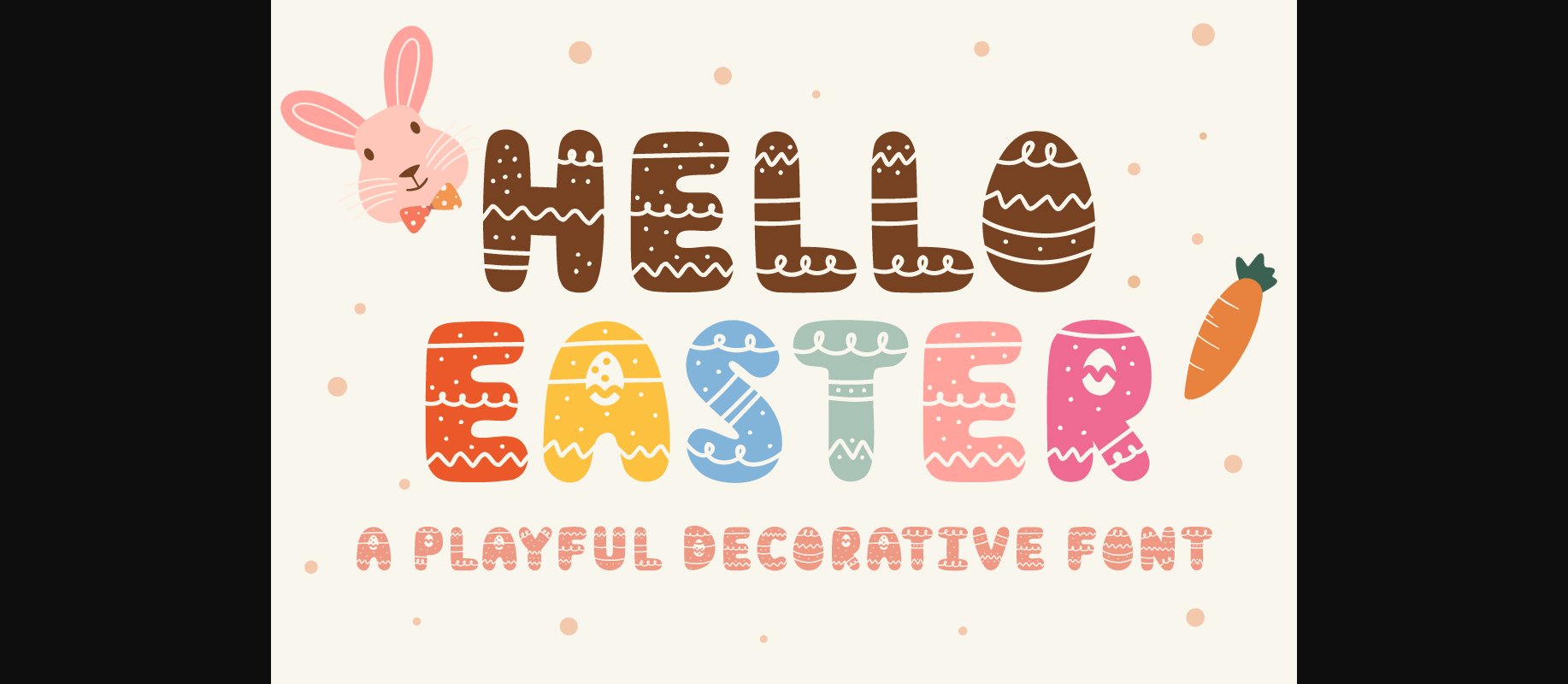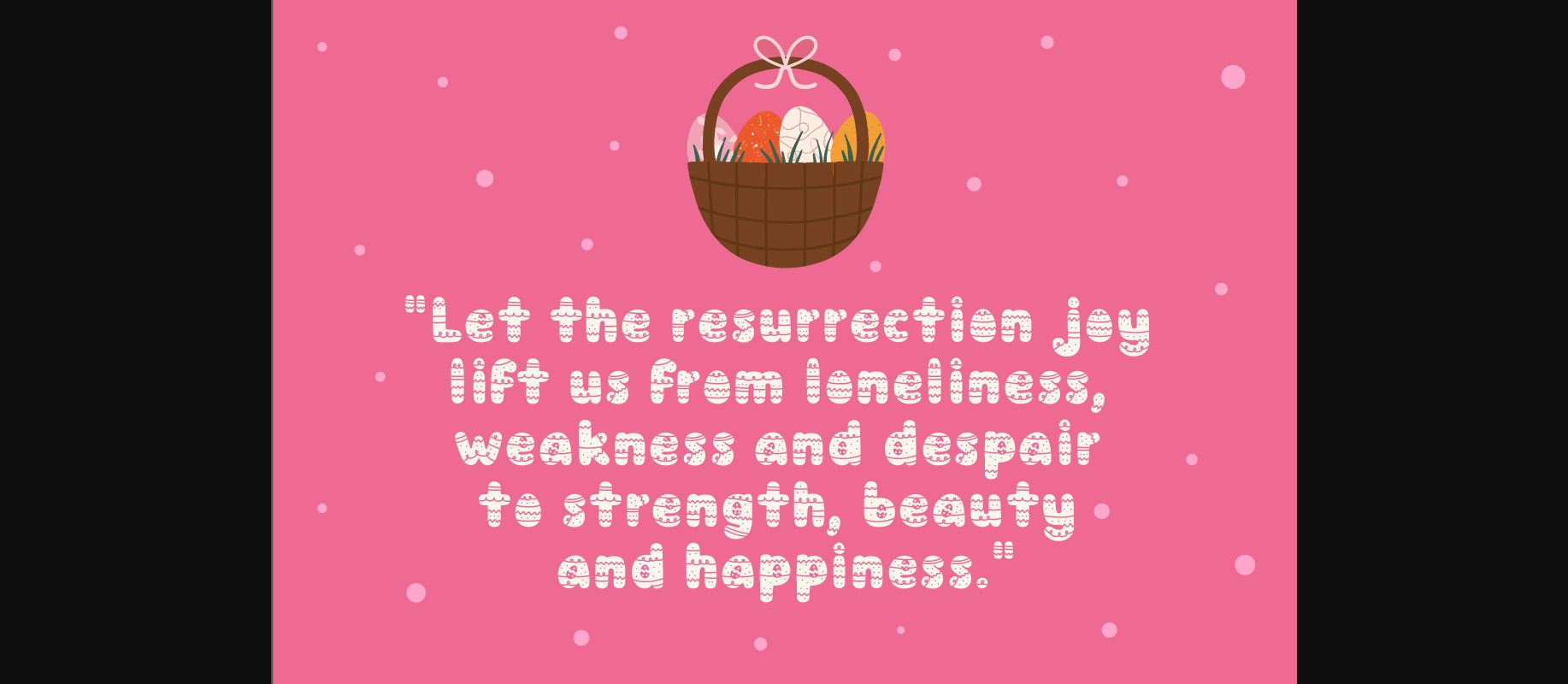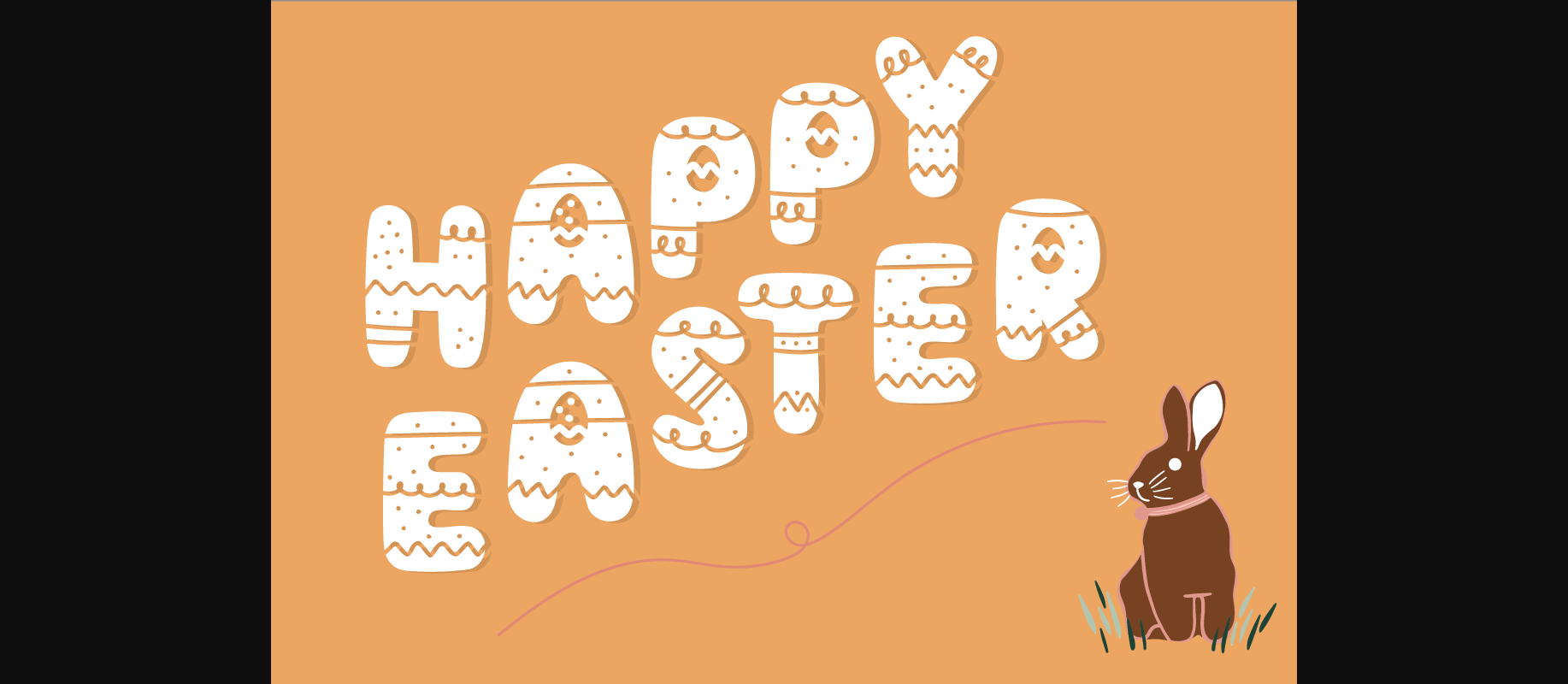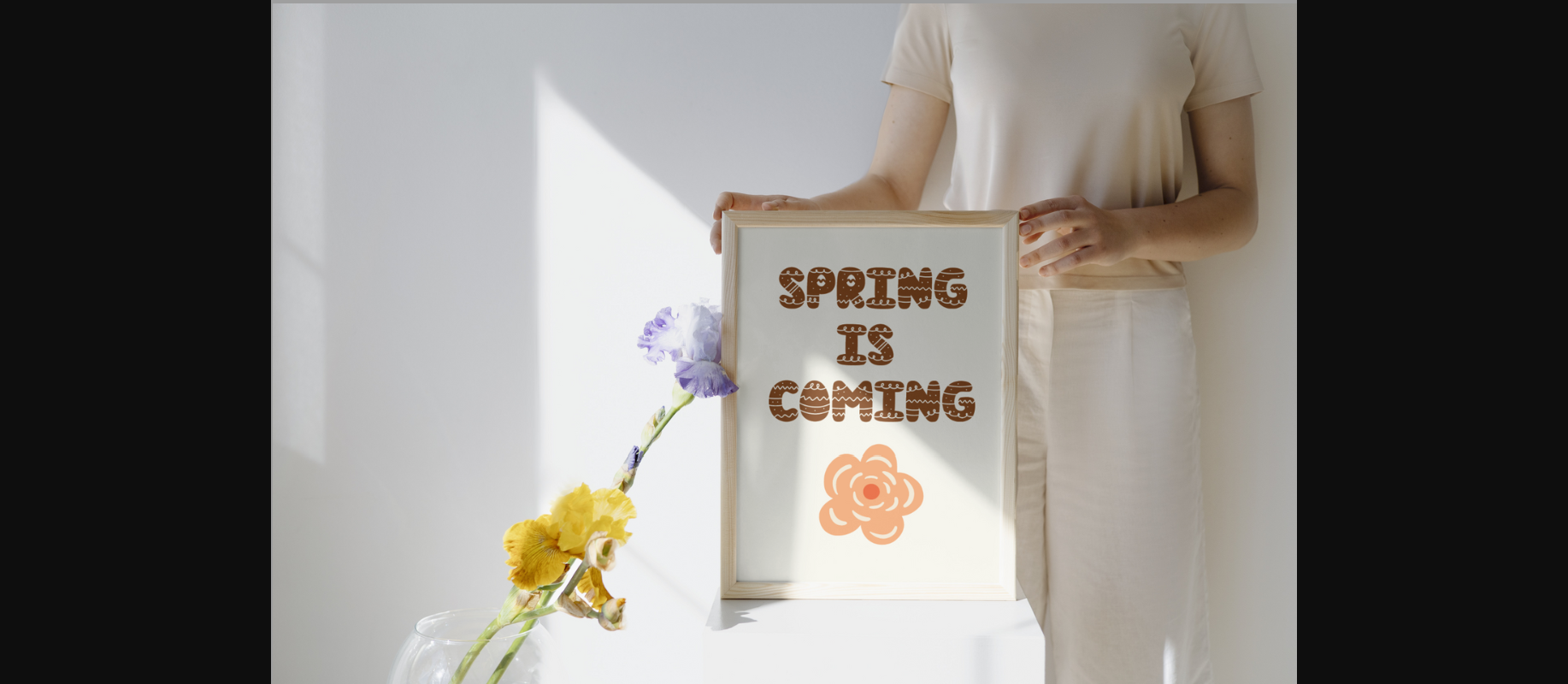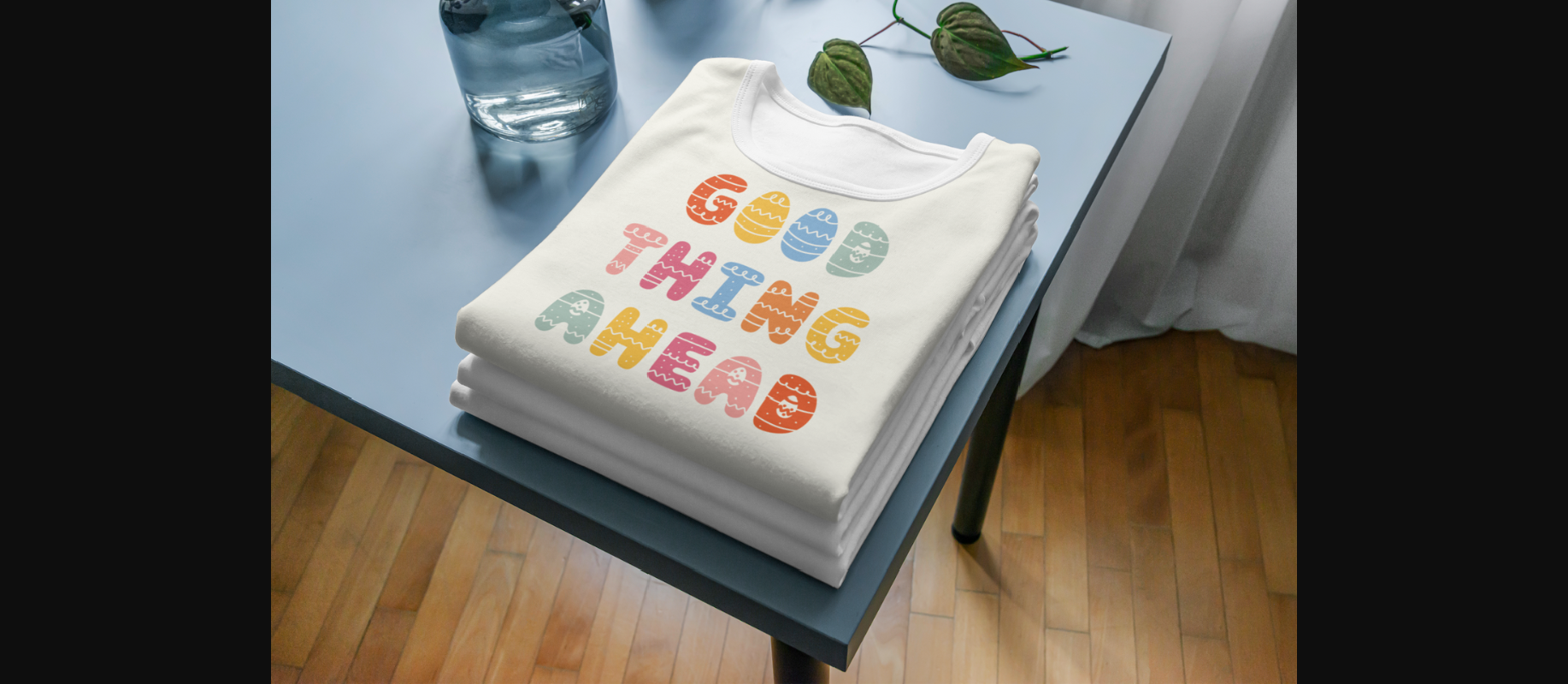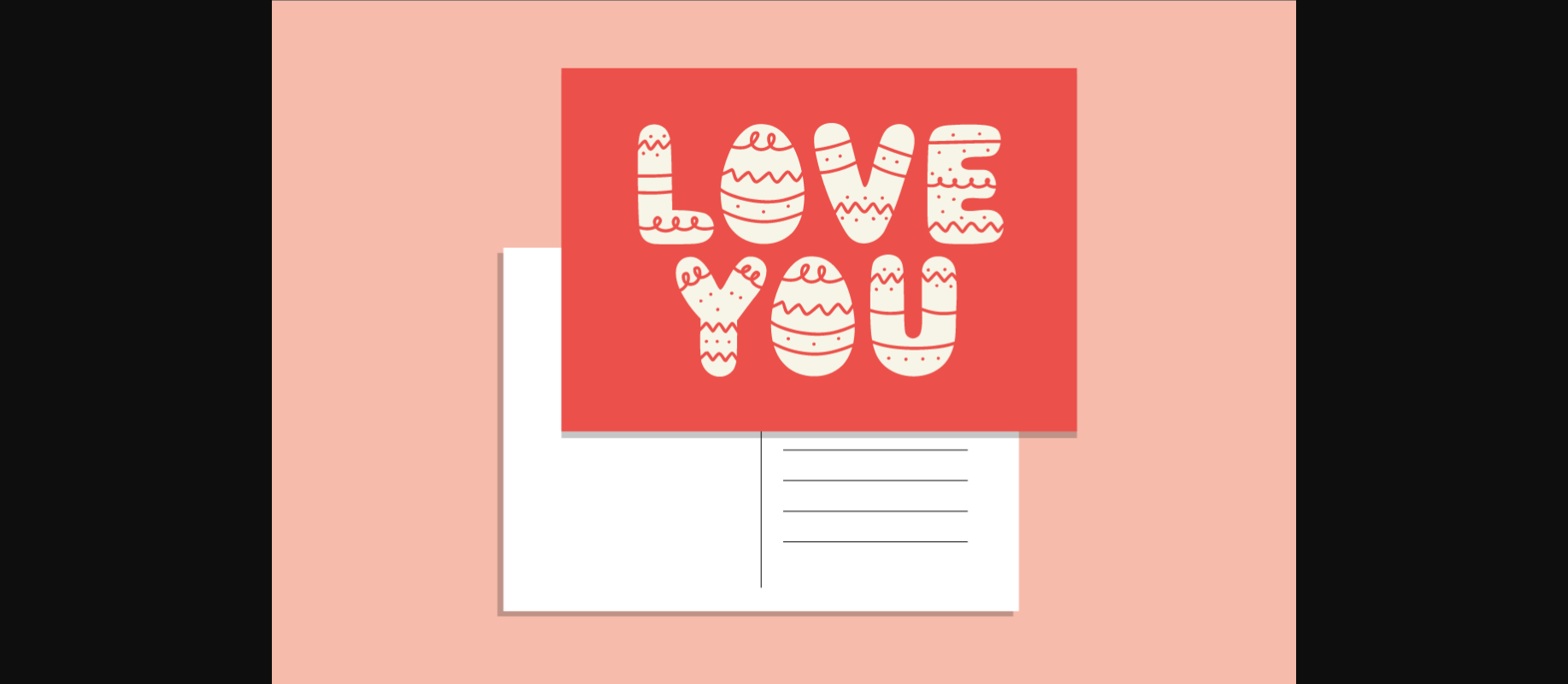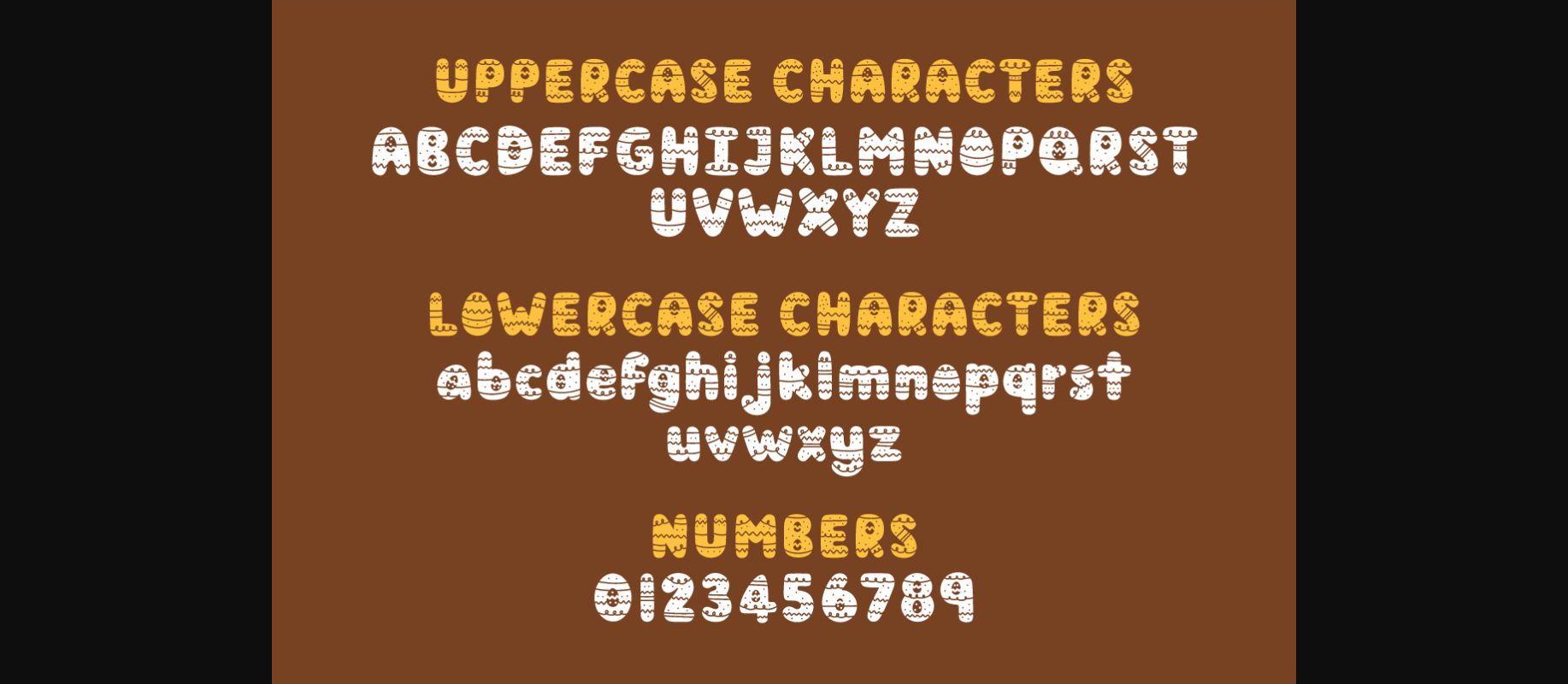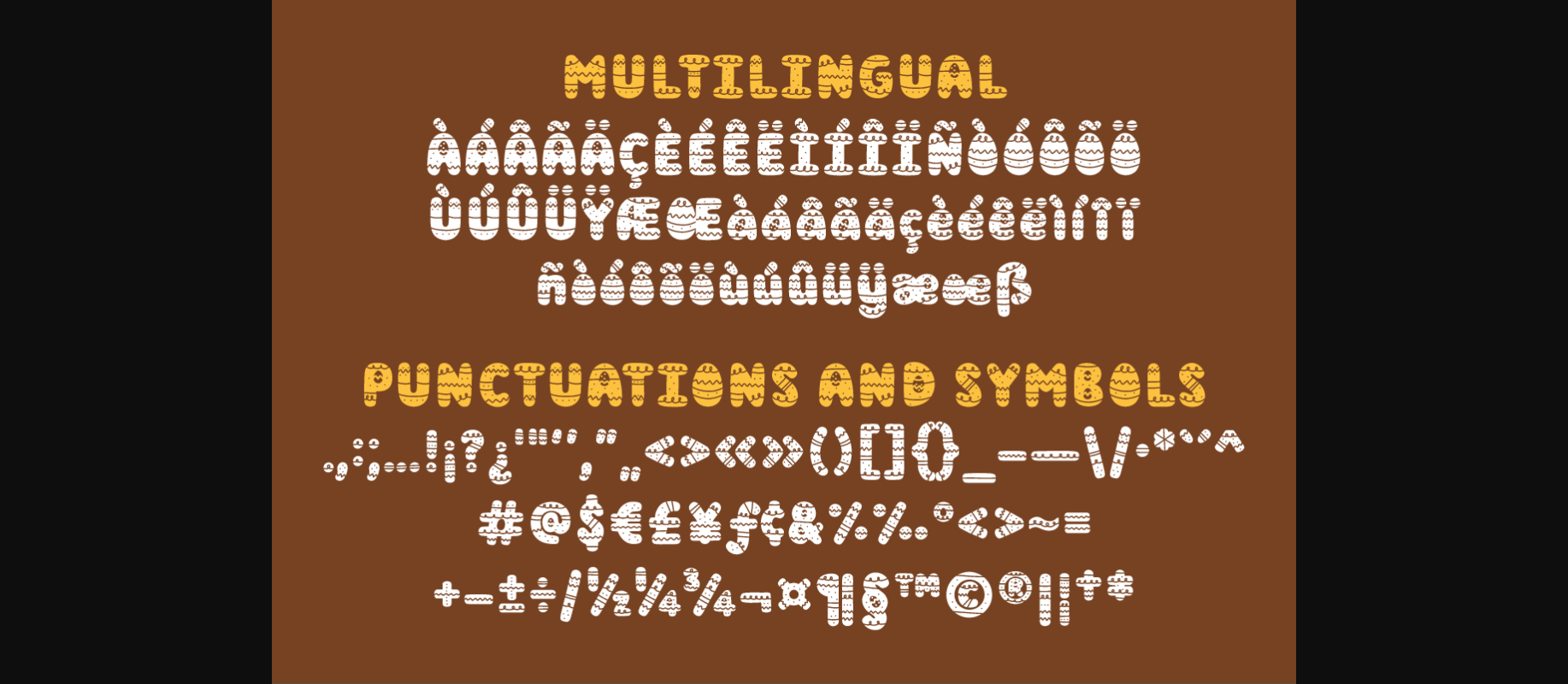
Hello Easter Font
Hello Easter is a playful decorative font. Perfect for Easter projects, shirts, Easter designs, invitation cards, mugs, stickers, playful quotes, creating posters, logos, greeting cards, packaging, decorating the illustration and so much more!